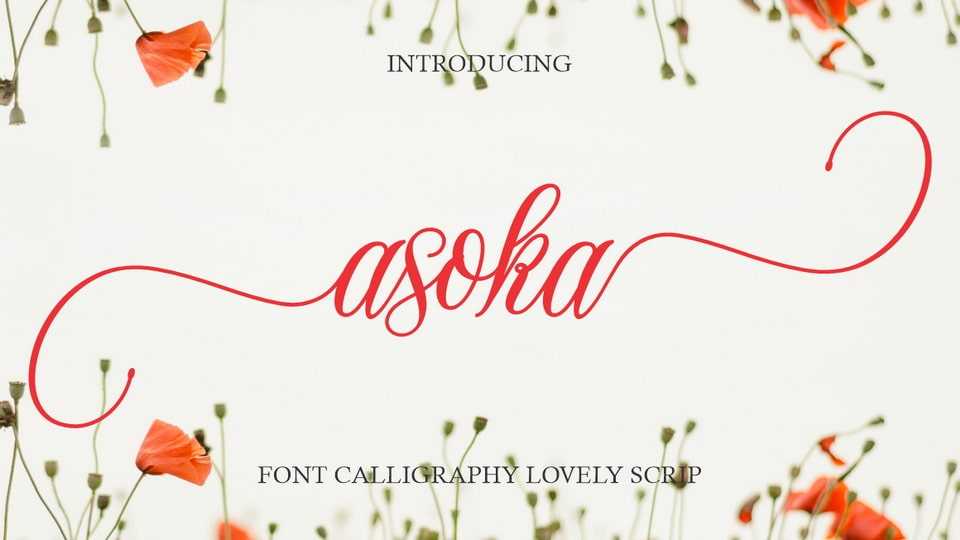
Download Asoka font, a modern, dynamic handcrafted script that also has beautiful OpenType features. The font is great for branding, logo design, clothing, posters, magazines and other design projects.
Designer: Gian Studio